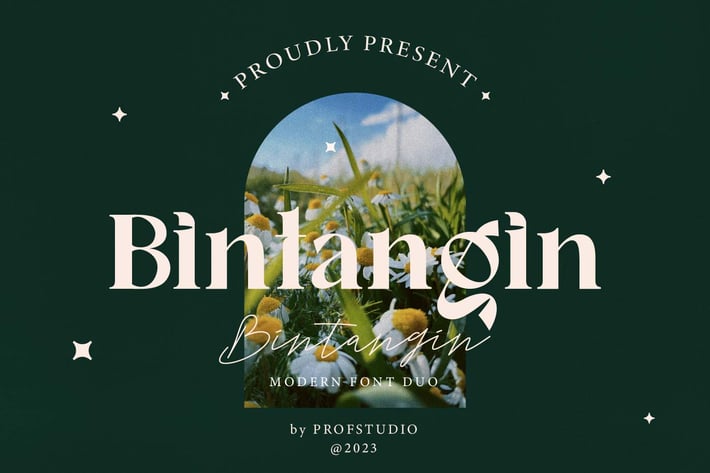
Bintangin - Modern Font Duo
Bintangin Regular which can be interpreted professional. we keep this font looks elegant, luxury, premium, modern, stylish, catchy and easy to use.
Bintangin Script - is the great choice for watermark on photography, branding, wedding event, signature or signature logo design, quotes, album cover, magazine, business card and many other design project. Bintangin Script here to make your work to high level!!!